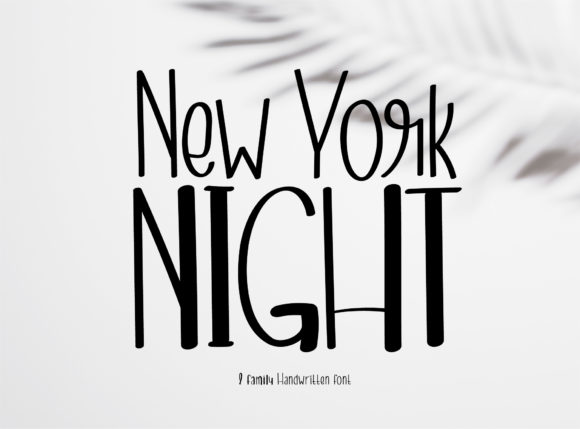
Get ready to dive into the captivating world of New York Night, a mesmerizing script font crafted by the renowned BB Type Studios. This exquisite font family is specially designed to elevate your digital creations, making them shine with an enchanting allure.
New York Night's distinctive handwritten style exudes warmth and charm, capturing the essence of heartfelt communication. Its flowing curves mimic the natural rhythm of pen strokes, creating a sense of authenticity and intimacy. Whether you're crafting captivating web ads or designing heartfelt invitations, this font will add a touch of magic to your words.
With its remarkable versatility, New York Night adapts seamlessly to a myriad of design aesthetics. Its playful nature lends itself perfectly to whimsical logos and eye-catching headlines, while its timeless elegance adds a touch of sophistication to brochures and presentations. The possibilities are endless, empowering you to unleash your creativity and make a lasting impression.
Imagine your web ads transformed into captivating works of art, drawing viewers in with their irresistible charm. New York Night's enchanting curves will guide their eyes across the page, creating a seamless journey that culminates in a call to action. Its friendly and approachable demeanor will foster a sense of trust and connection, encouraging visitors to take the next step with confidence.
This remarkable font family is not just a collection of letters; it's a gateway to a world of endless possibilities. Let New York Night be your creative companion, guiding you towards designs that resonate deeply with your audience. Its captivating style will leave an unforgettable mark on all who encounter it, turning your digital creations into cherished memories.